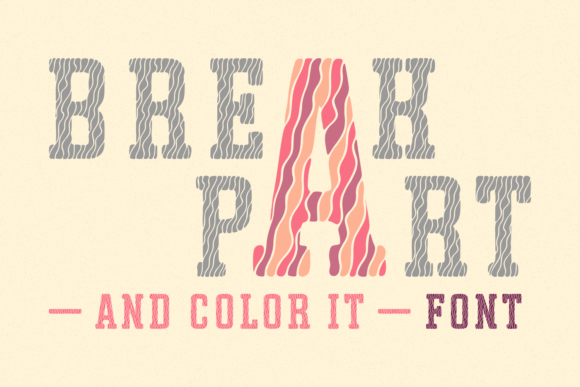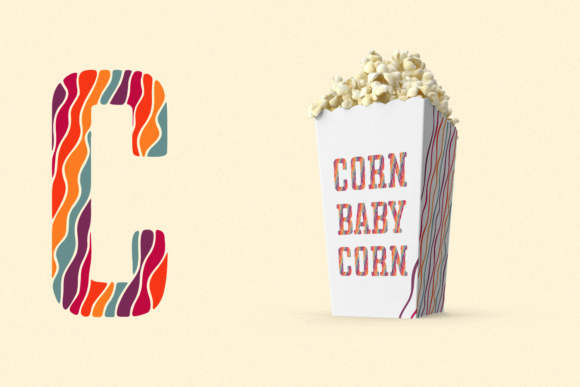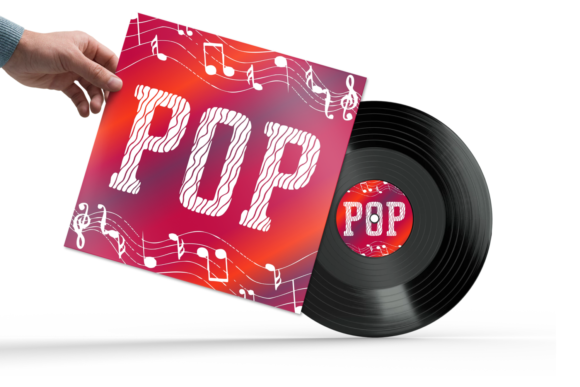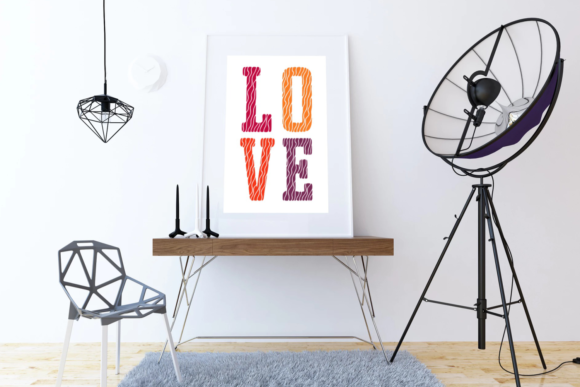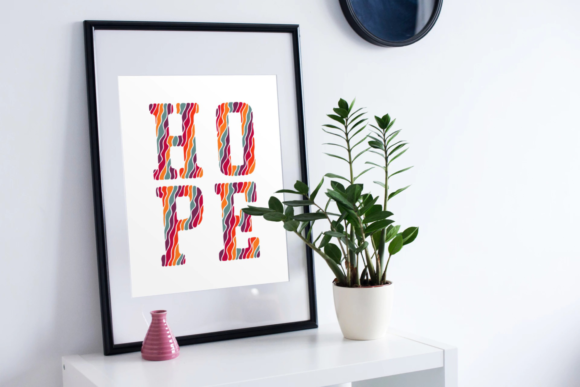
Introducing Anu Font: Unleash Your Creativity with this Wild Display Font
Are you tired of using the same old fonts for your designs? Do you want to add a striking touch to your creations? Look no further than Anu Font, a wild display font that is sure to take your designs to the next level. With its amazing texture and unique style, Anu Font is perfect for designers and crafters who want to make a statement.
What is Anu Font?
Anu Font is a display font that is designed to make a bold statement. Its unique texture and wild style make it perfect for creating eye-catching designs that demand attention. Whether you’re working on a logo, a poster, or a social media graphic, Anu Font is sure to add a touch of excitement to your design.
Key Features of Anu Font
• Wild and Unique Texture: Anu Font has a one-of-a-kind texture that sets it apart from other fonts. Its rough, unfinished look gives it a raw, edgy feel that’s perfect for designs that need a bit of attitude.
• Perfect for Display Text: Anu Font is designed specifically for display text, making it perfect for headlines, titles, and other prominent text elements.
• Highly Versatile: Despite its bold style, Anu Font is surprisingly versatile. It can be used for a wide range of design projects, from posters and flyers to logos and social media graphics.
• Easily Readable: Despite its wild texture, Anu Font is surprisingly easy to read, making it perfect for designs that need to communicate a message quickly and effectively.
How to Use Anu Font in Your Designs
Anu Font is incredibly easy to use, even for designers who are new to working with display fonts. Here are a few tips for incorporating Anu Font into your designs:
• Use it as a Headline Font: Anu Font is perfect for headlines and titles. Use it to add a bold, eye-catching touch to your designs.
• Experiment with Different Colors: Anu Font looks great in a wide range of colors. Experiment with different hues and combinations to find the perfect look for your design.
• Pair it with Other Fonts: Anu Font pairs well with a wide range of other fonts. Try pairing it with a clean, sans-serif font for a bold and modern look.
Benefits of Using Anu Font
So why should you choose Anu Font for your designs? Here are just a few benefits of using this amazing display font:
• Adds a Unique Touch: Anu Font adds a unique touch to your designs, setting them apart from the competition.
• Increases Visual Impact: With its bold, eye-catching style, Anu Font is sure to increase the visual impact of your designs.
• Perfect for Branding: Anu Font is perfect for branding projects, adding a bold and memorable touch to your logo and other marketing materials.